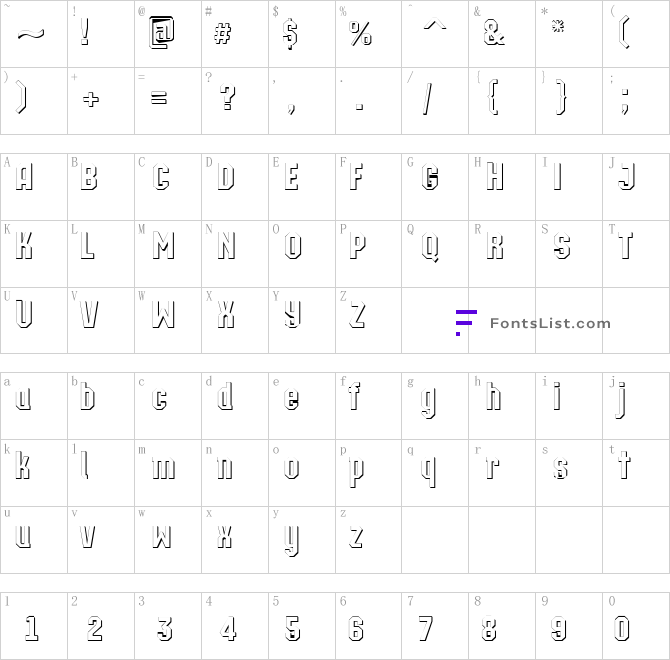
- Font Name:a_Technocrat3Dxtr
- Subfamily:ArsenalCompany: a_Technocrat3Dextrude: 1998
- Full Name:a_Technocrat3Dextrude
a_Technocrat3Dextrude.ttf is a very beautiful artistic font, a_Technocrat3Dextrude.ttf is widely used in the design and printing of various books and pictures,a_Technocrat3Dextrude.ttf has a strong visual impact,a_Technocrat3Dextrude.ttf is a commonly used font in newspapers, magazines and books, and is used in posters, e-commerce Poster design, store design, logo design, font design and other fields.a_Technocrat3Dextrude.